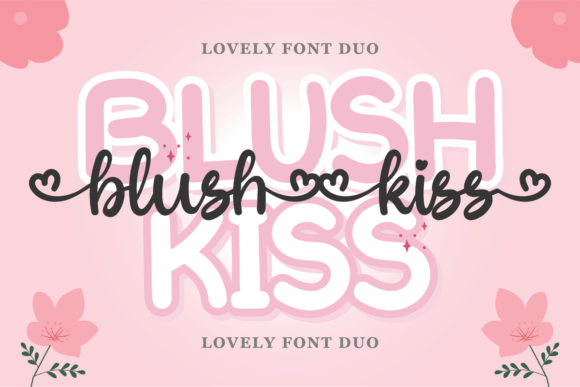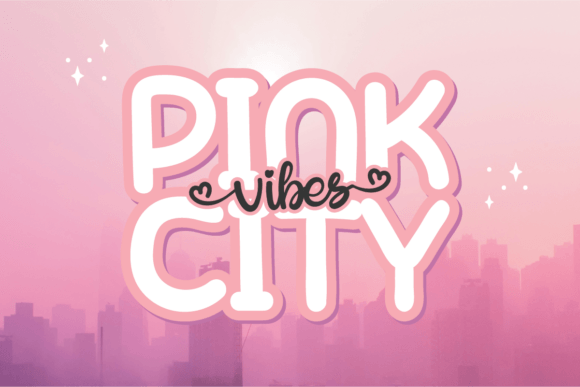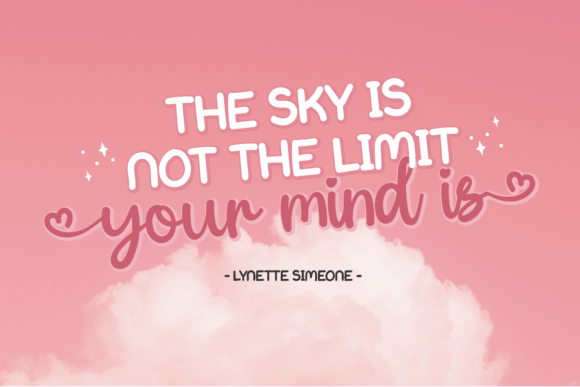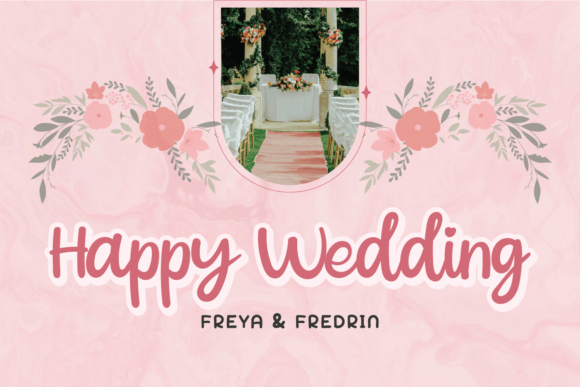
Blush Kiss Font
About the Blush Kiss Font
From logos to headlines, the Blush Kiss Font is the perfect choice for making a lasting impression. Blush Kiss Font Duo – Romantic and Playful Typography
Blush Kiss is a lovely font duo that combines a bold, playful sans-serif with an elegant, handwritten script adorned with charming heart swashes. Perfect for creating eye-catching designs with a romantic touch, this duo works beautifully for wedding invitations, branding, social media posts, and Valentine’s Day projects. The script font features flowing curves and delightful details, while the sans-serif font provides a clean, modern contrast.
Blush Kiss Font Usage Examples
Blush Kiss Font Example